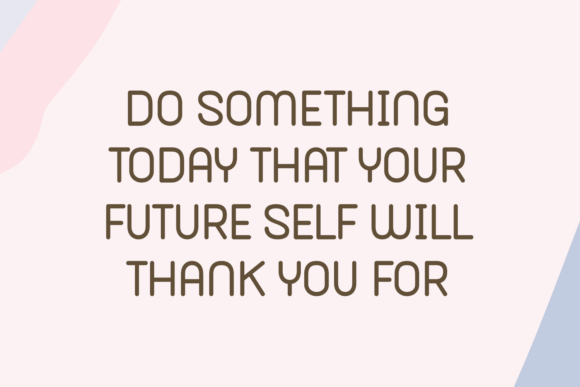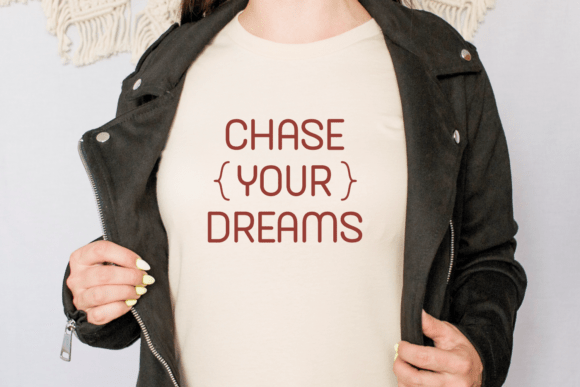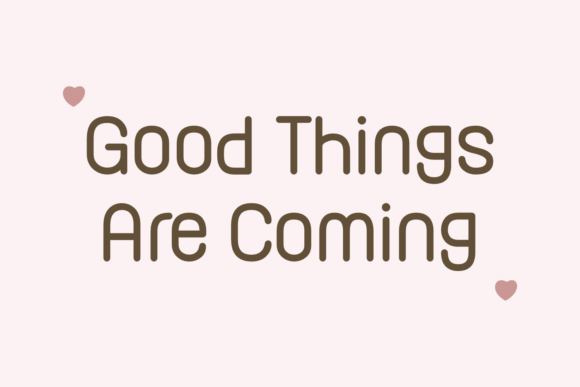
Unlocking the Charm of Feeling Jealous Font: A Designer’s Delight
I’ll never forget the moment I stumbled upon Feeling Jealous Font while working on a quirky packaging project for a client’s artisanal food business. I had been searching for the perfect font to capture the playful, whimsical vibe of their brand, but everything I tried seemed either too bland or too over-the-top. That’s when Feeling Jealous Font caught my eye – its endearing sans-serif design and lively aura instantly resonated with the project’s theme. It was love at first sight! 💕
As I dove deeper into Feeling Jealous Font, I discovered a treasure trove of creative possibilities. Here’s what I’m obsessed with:
- ✨ Playful yet elegant design: This font effortlessly balances playfulness with elegance, making it perfect for a wide range of applications.
- ✅ Versatility: From packaging to stickers, t-shirts to wall art, Feeling Jealous Font adapts seamlessly to various design needs.
- 💫 Emotional connection: The font’s charm lies in its ability to evoke emotions – it’s perfect for projects that require a personal touch.
Of course, no font is perfect, and Feeling Jealous Font has a few minor quirks:
- 🤔 Limited use in formal contexts: Due to its playful nature, Feeling Jealous Font might not be the best fit for formal or corporate designs.
- ⚠️ Glyph limitations: While the font offers a range of glyphs and stylistic alternates, some users might find the selection limited for certain projects.
The Story Behind Feeling Jealous Font
Imagine a designer who grew up surrounded by vintage typography and hand-painted signs. This designer’s passion for creating unique, eye-catching fonts led to the birth of Feeling Jealous Font. Inspired by the whimsy of childhood and the elegance of adulthood, Feeling Jealous Font was crafted to bring a touch of personality to any design.
| Font Name | Feeling Jealous Font |
| Author | Eightde |
| What makes Feeling Jealous Font unique? | Feeling Jealous Font boasts a distinctive sans-serif design with a playful, whimsical aura that sets it apart from other fonts. |
| Is Feeling Jealous Font suitable for body text? | While Feeling Jealous Font is primarily designed for display purposes, it can be used for body text in certain contexts, such as creative writing or artistic projects. |
In conclusion, Feeling Jealous Font is more than just a font – it’s a celebration of creativity, playfulness, and self-expression. With its undeniable allure and versatility, this font is sure to become a staple in any designer’s toolkit.